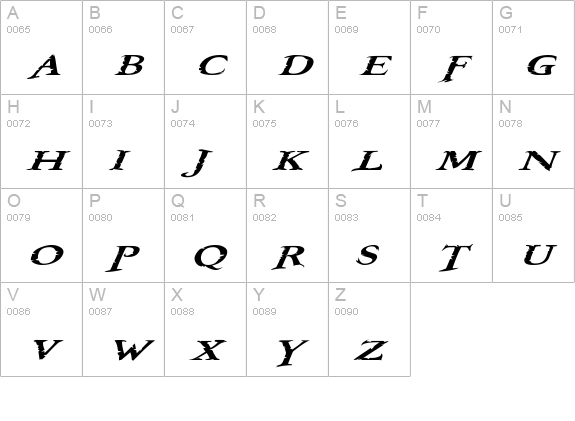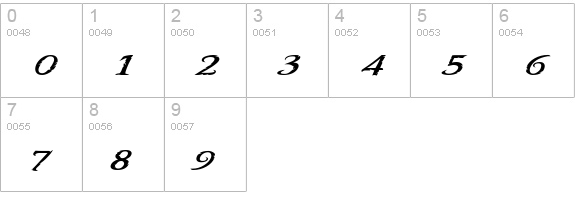
Booter - One One font is a modern and stylish typeface that exudes sophistication and elegance. With its sleek lines and bold presence, this font is perfect for adding a touch of class to any design project. Whether you're creating a logo, poster, or website, Booter - One One font will make a lasting impression. The best part? Booter - One One font is completely free to download at FontsMarket.com. Now you can elevate your designs without breaking the bank. Don't miss out on this amazing opportunity to enhance your projects with this stunning font. Download Booter - One One font today and let your creativity soar.